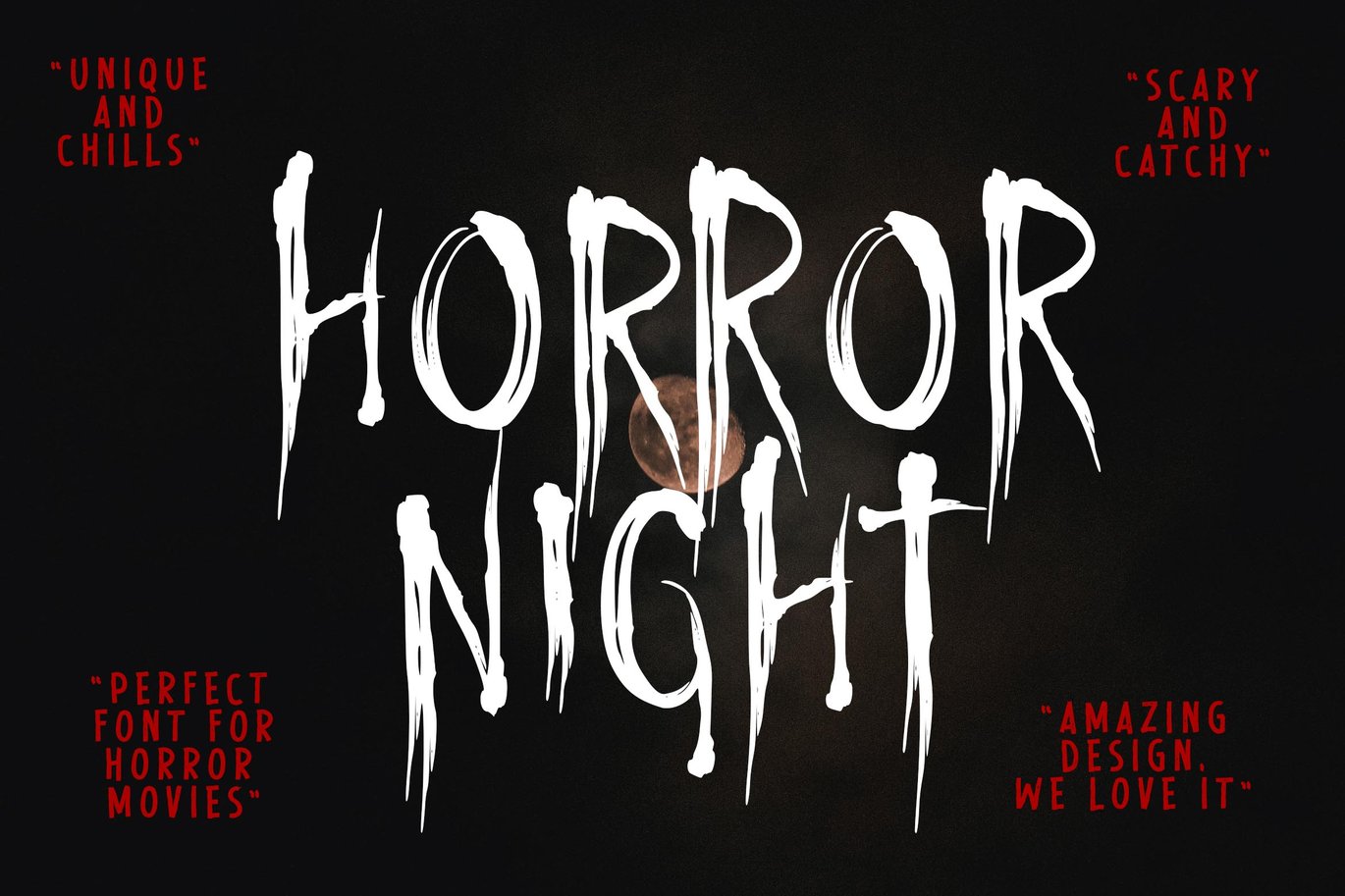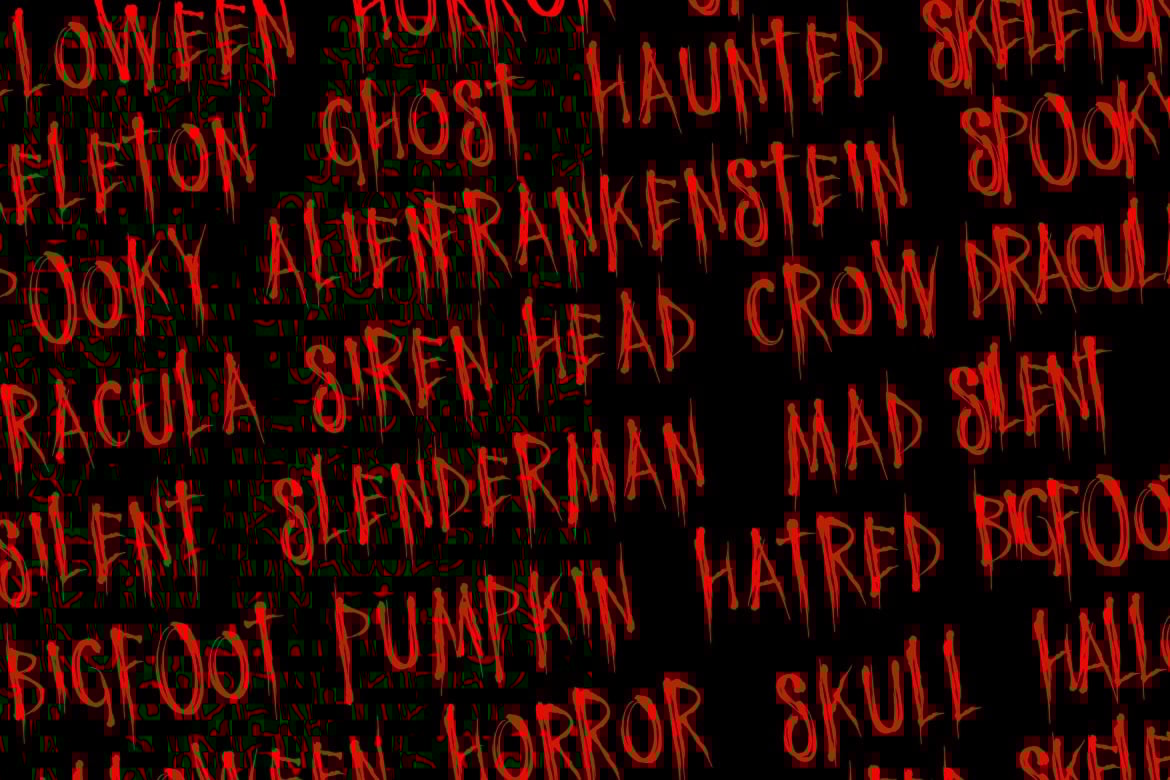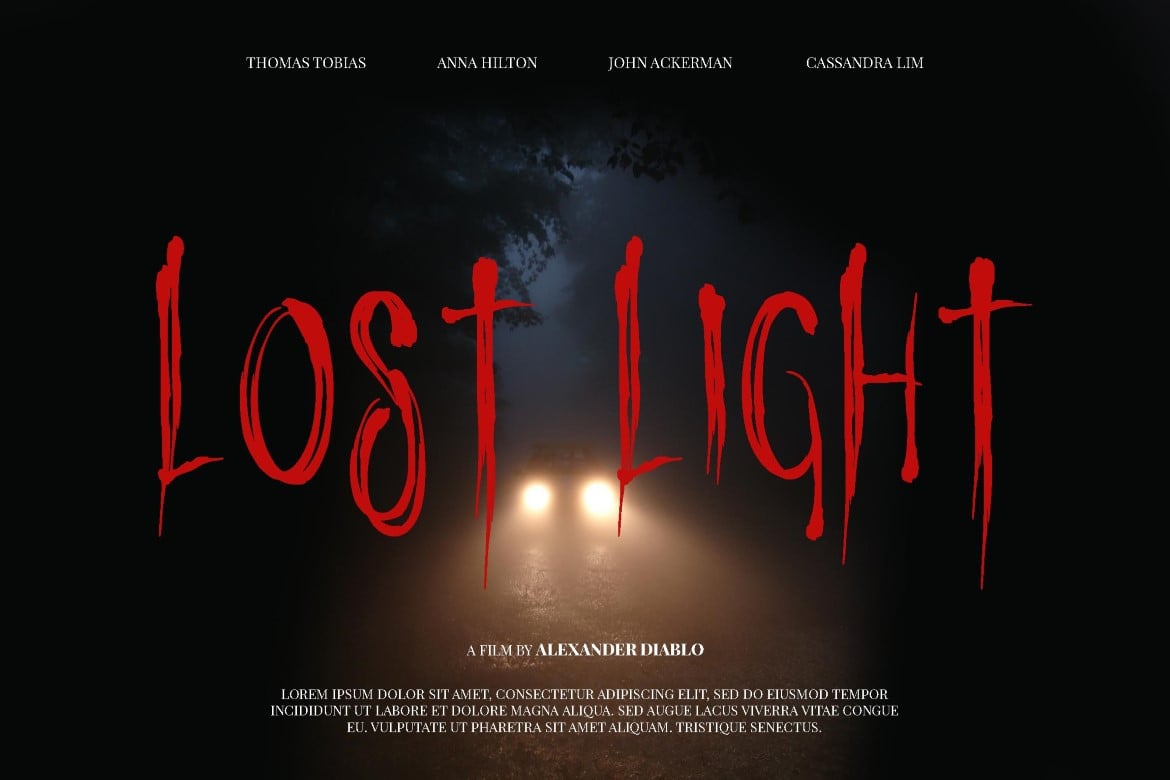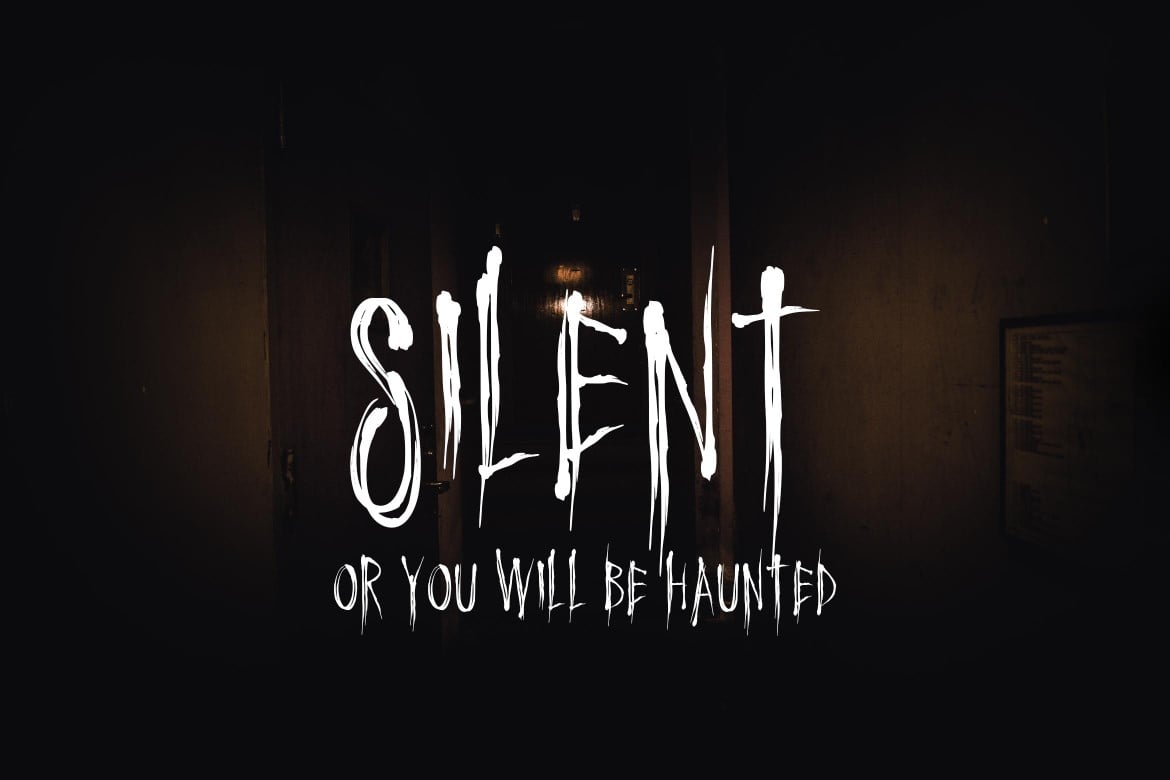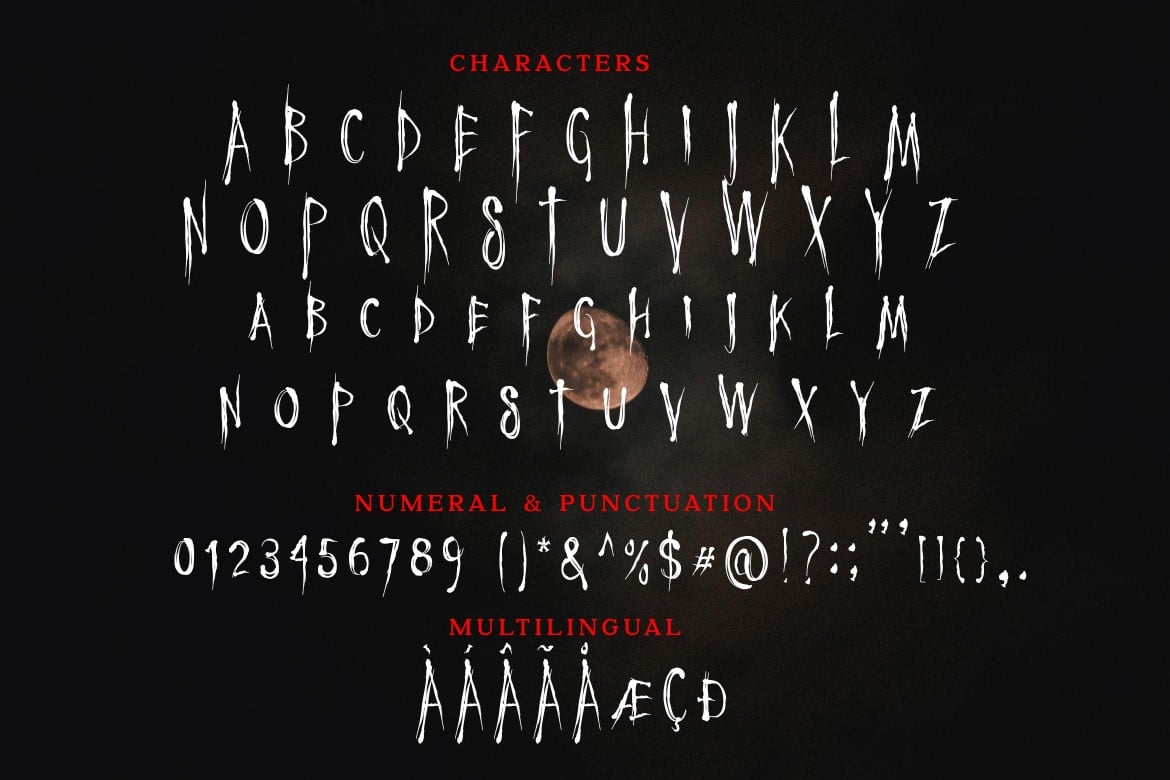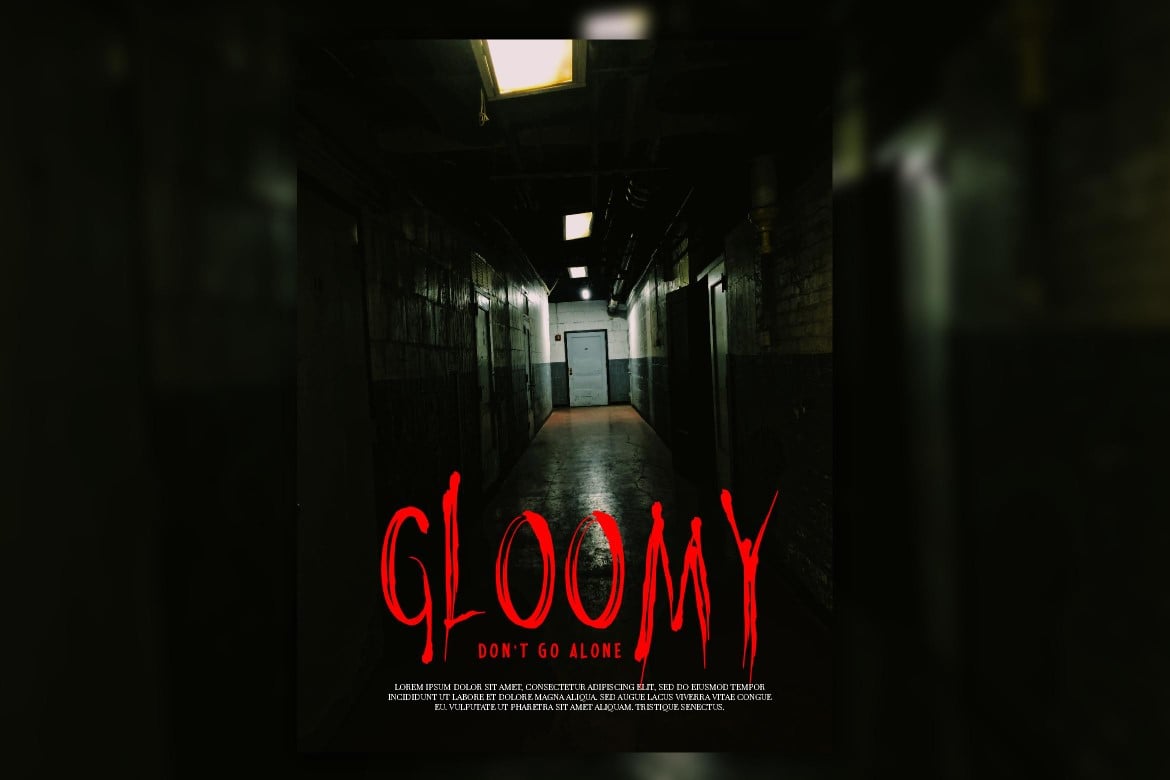
Horror Night Halloween Font
Horror Night is a cool and horror looking display font. Perfect for horror design like halloween or movie horror poster. No matter the topic, this font will be an incredible asset to your fonts’ library, as it has the potential to elevate any creation.
- Multilingual Support : ÀÁÂÃÄÅÇÐÈÉÊËÌÍÎÏÑØÒÓÔÕÖÙÜÚÛÝŸỲŸÆŒßÞþ
- Standar Ligature